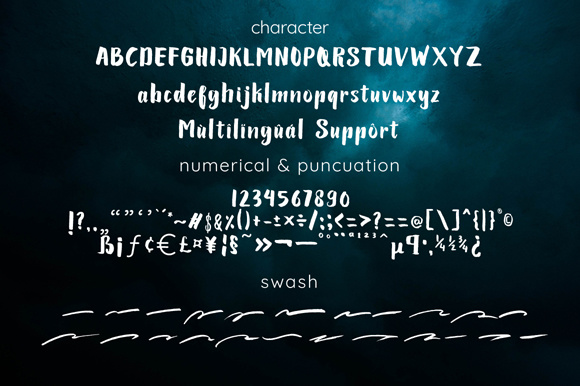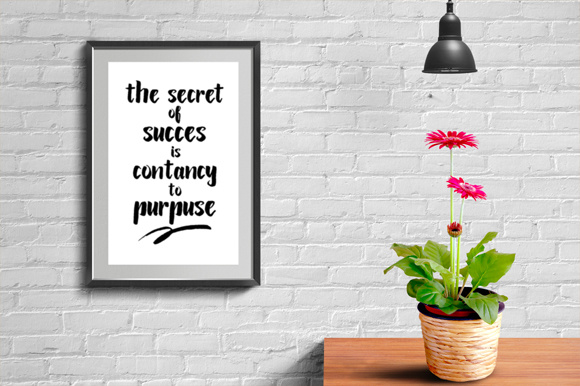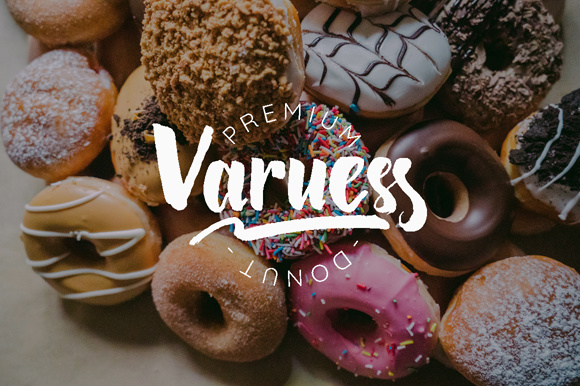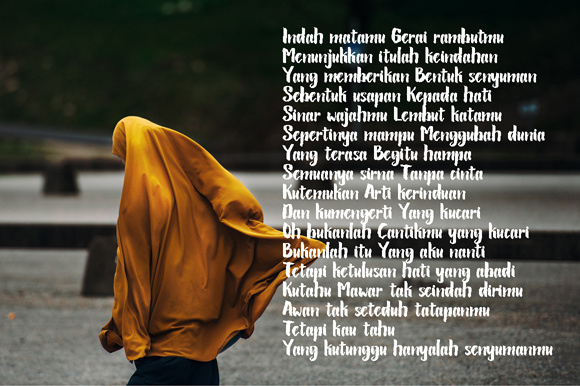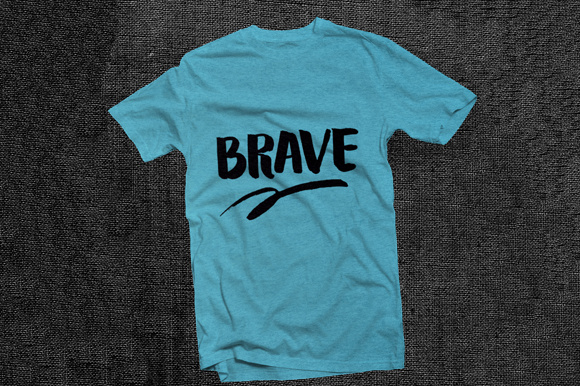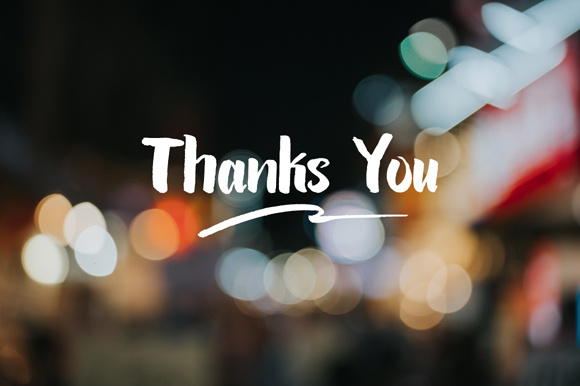
Lariess Font
About Lariess Font
Lariess is a contemporary hand-made brush type. It will give your design a stylish look and feel. Lariess was painted on paper and carefully digitized and optimized after to give the best results for your design.